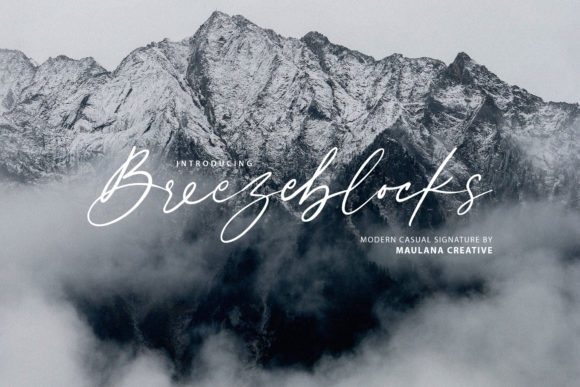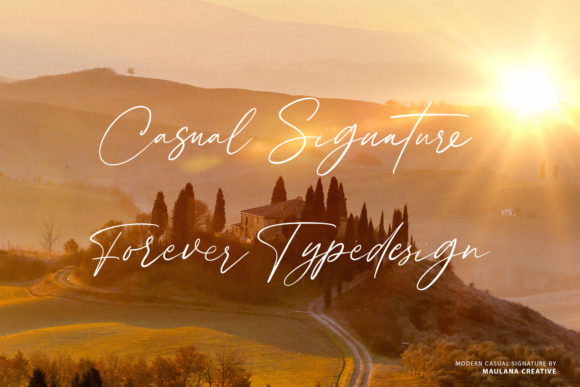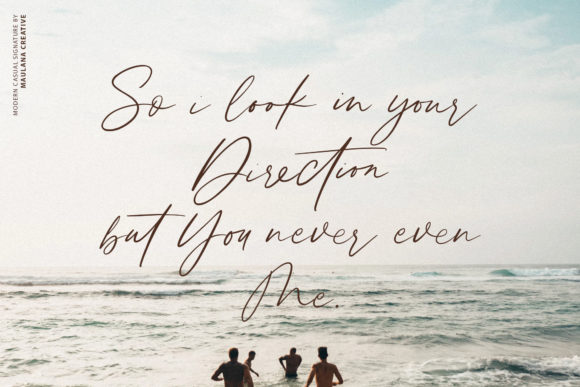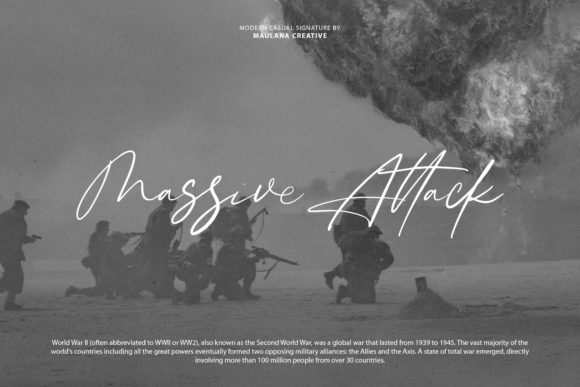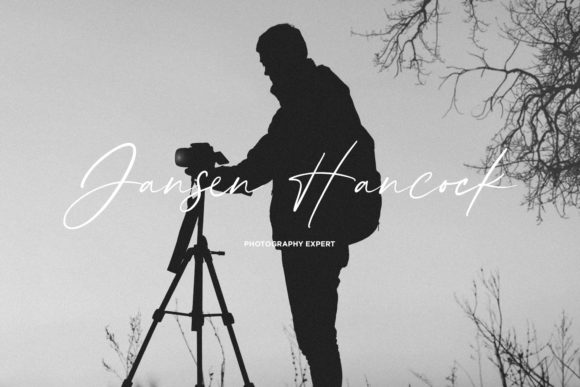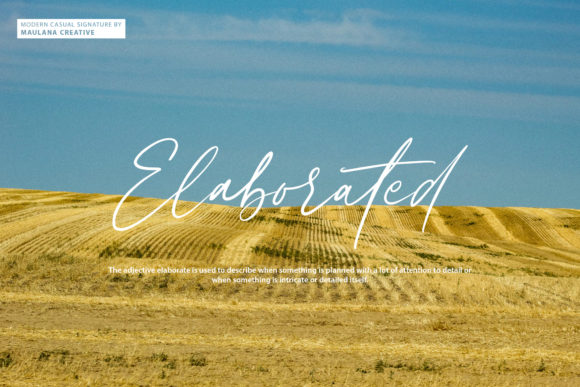
Breezeblocks Font: The Modern Script Font You Need
Breezeblocks is a modern, charming, and authentic script font that has taken the design world by storm. With its unique charm and contemporary style, it’s no wonder designers and crafters are falling in love with this beautiful font. In this article, we’ll dive into the world of Breezeblocks Font, exploring its features, uses, and what makes it a must-have for any design project.
The Story Behind Breezeblocks Font
Breezeblocks Font is a script font designed to bring a touch of elegance and sophistication to any design project. Its creator aimed to craft a font that would be both modern and authentic, with a unique charm that sets it apart from other fonts. The result is a beautiful, flowing script font that exudes warmth and personality.
Key Features of Breezeblocks Font
So, what makes Breezeblocks Font so special? Here are some of its key features:
- Modern and Authentic: Breezeblocks Font boasts a contemporary style that’s both fresh and timeless.
- Unique Charm: The font’s unique character and personality shine through in its elegant strokes and curves.
- Script Font: Breezeblocks is a script font, perfect for adding a touch of sophistication to any design project.
- Highly Versatile: This font can be used for a wide range of projects, from branding and advertising to packaging and crafting.
Uses of Breezeblocks Font
Breezeblocks Font is an incredibly versatile font that can be used for a variety of design projects. Here are some ideas to get you started:
- Branding and Logo Design: Use Breezeblocks Font to create a unique and memorable logo for your brand.
- Advertising and Marketing: Add a touch of elegance to your advertising and marketing materials with this beautiful script font.
- Packaging Design: Breezeblocks Font is perfect for packaging design, adding a touch of sophistication to any product.
- Crafting and DIY Projects: This font is also great for crafting and DIY projects, such as making signs, cards, and other handmade items.
Tips for Using Breezeblocks Font
To get the most out of Breezeblocks Font, here are some tips to keep in mind:
- Use it Sparingly: Breezeblocks Font is a statement font, so use it sparingly to make a big impact.
- Pair it with Other Fonts: Experiment with pairing Breezeblocks Font with other fonts to create a unique and interesting contrast.
- Adjust the Size and Style: Don’t be afraid to adjust the size and style of Breezeblocks Font to suit your design needs.
Breezeblocks Font is a modern, charming, and authentic script font that’s perfect for designers and crafters looking to add a touch of elegance and sophistication to their design projects. With its unique charm and contemporary style, it’s no wonder this font is quickly becoming a favorite among designers. Whether you’re working on a branding project, advertising campaign, or crafting DIY project, Breezeblocks Font is sure to inspire and impress.